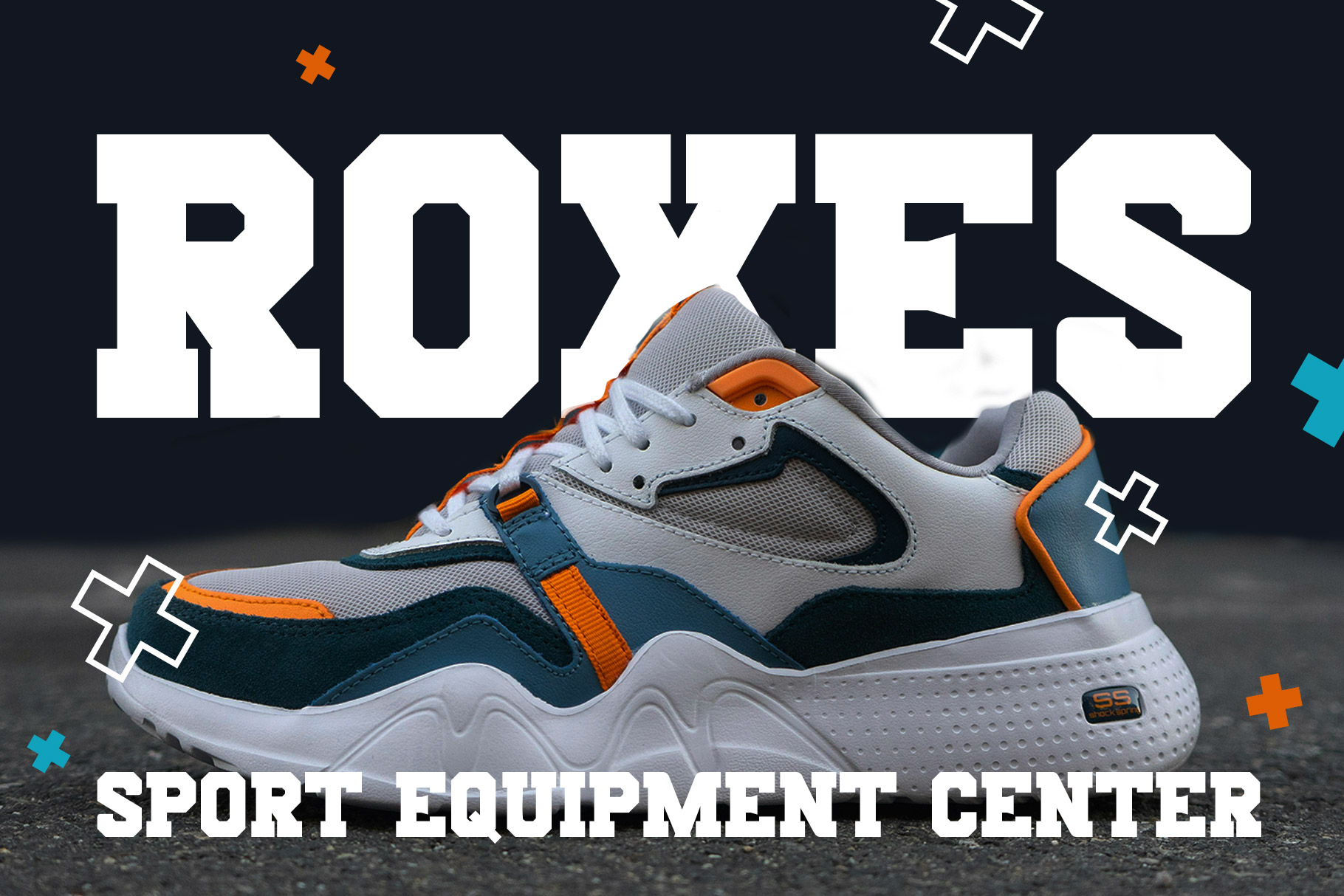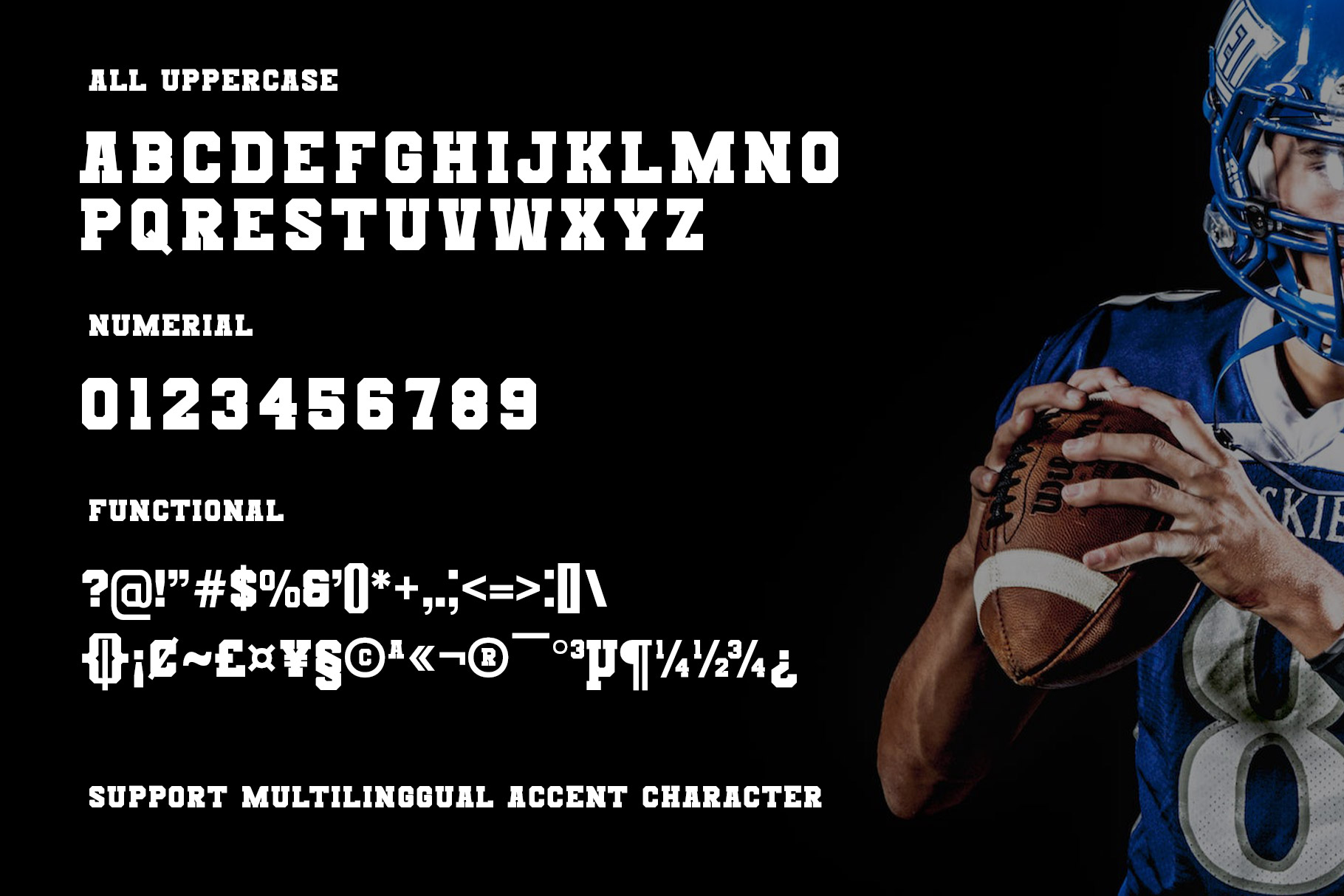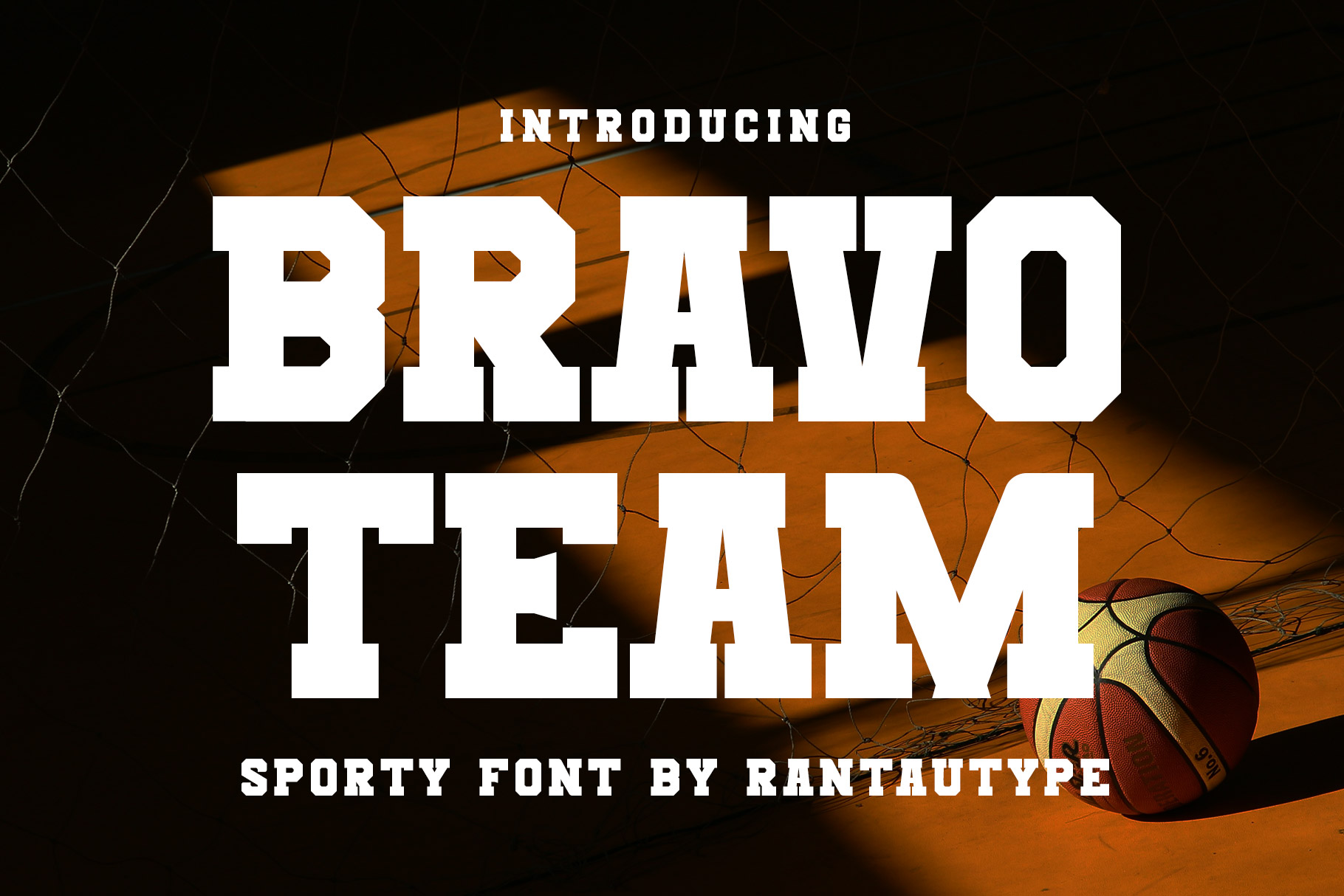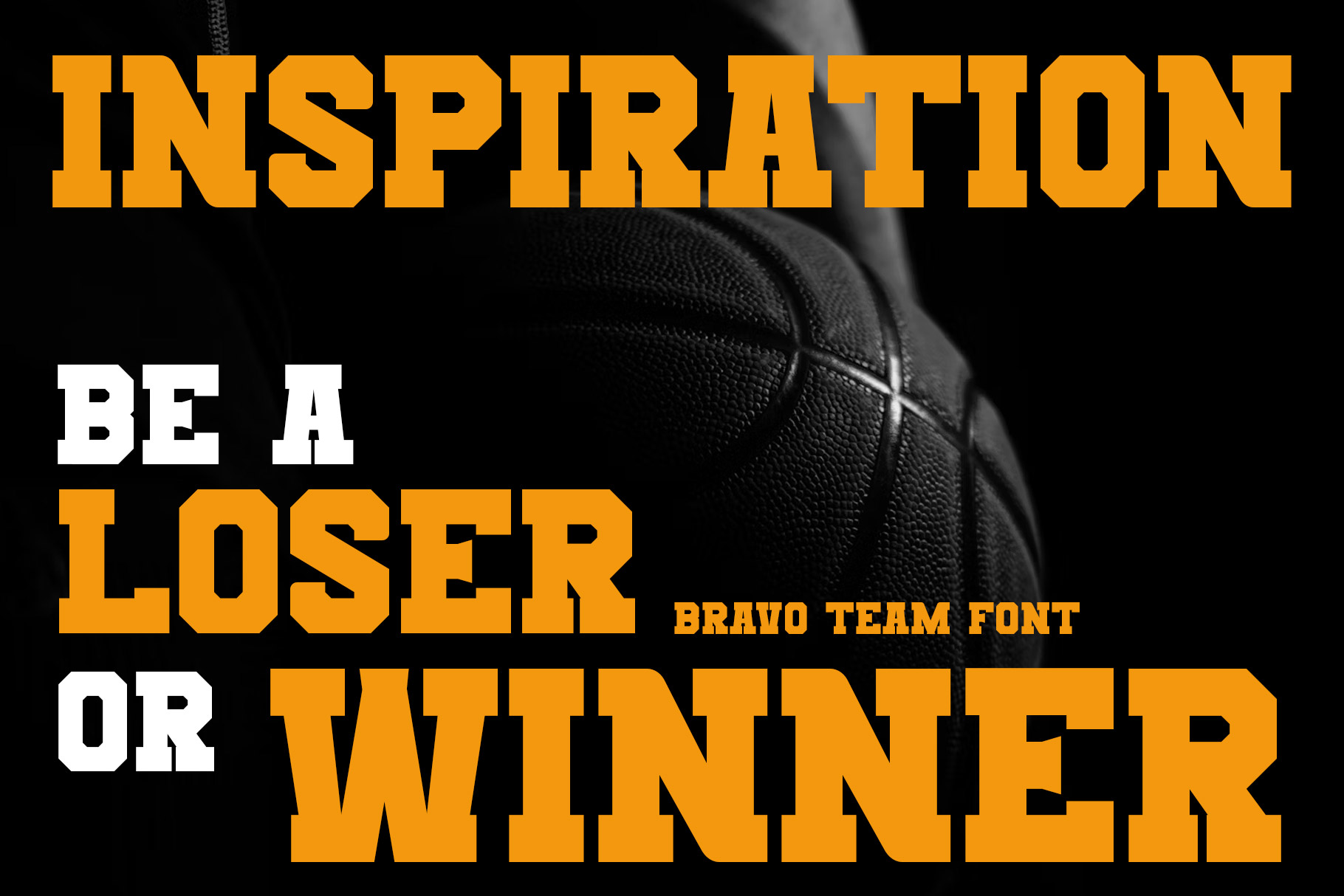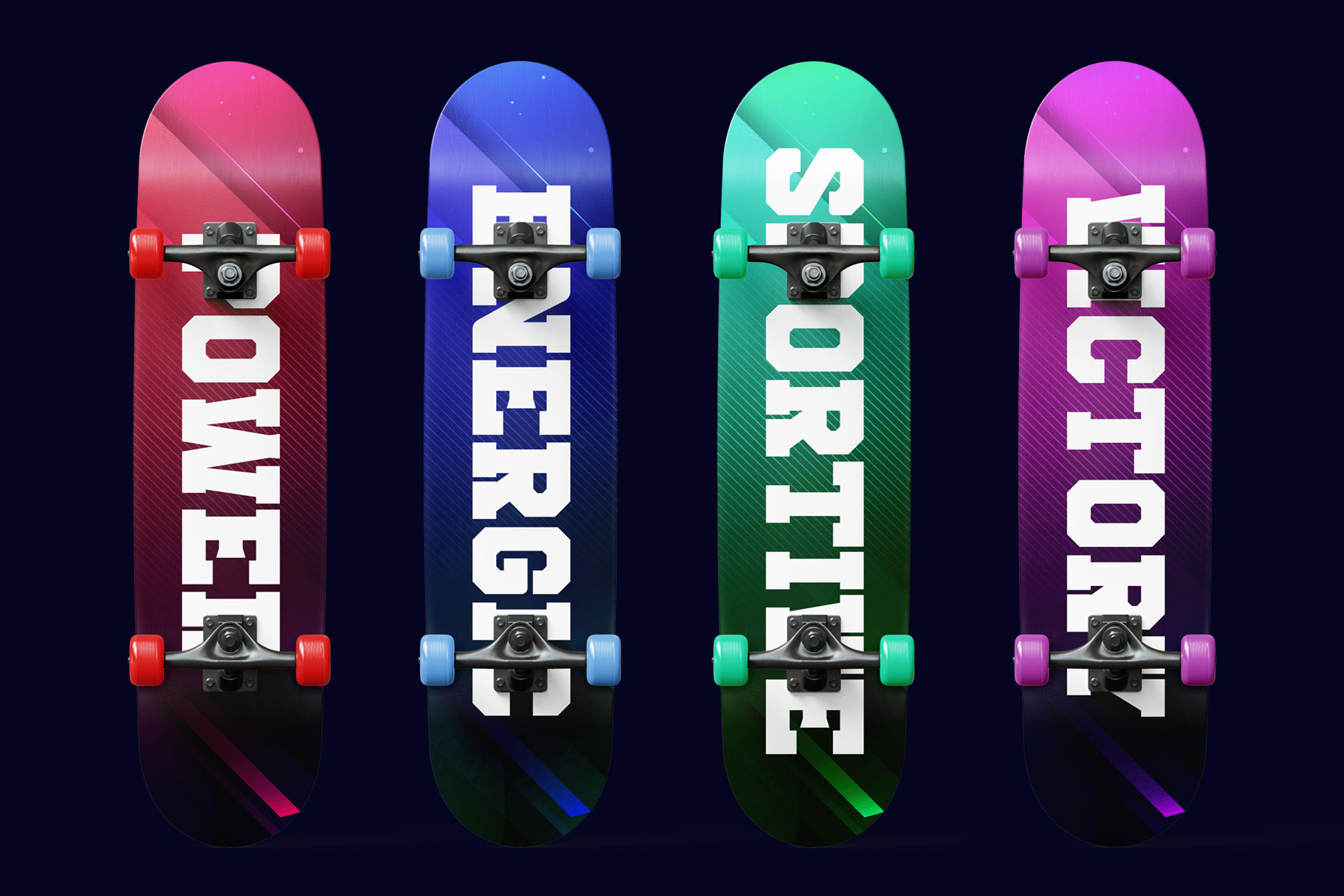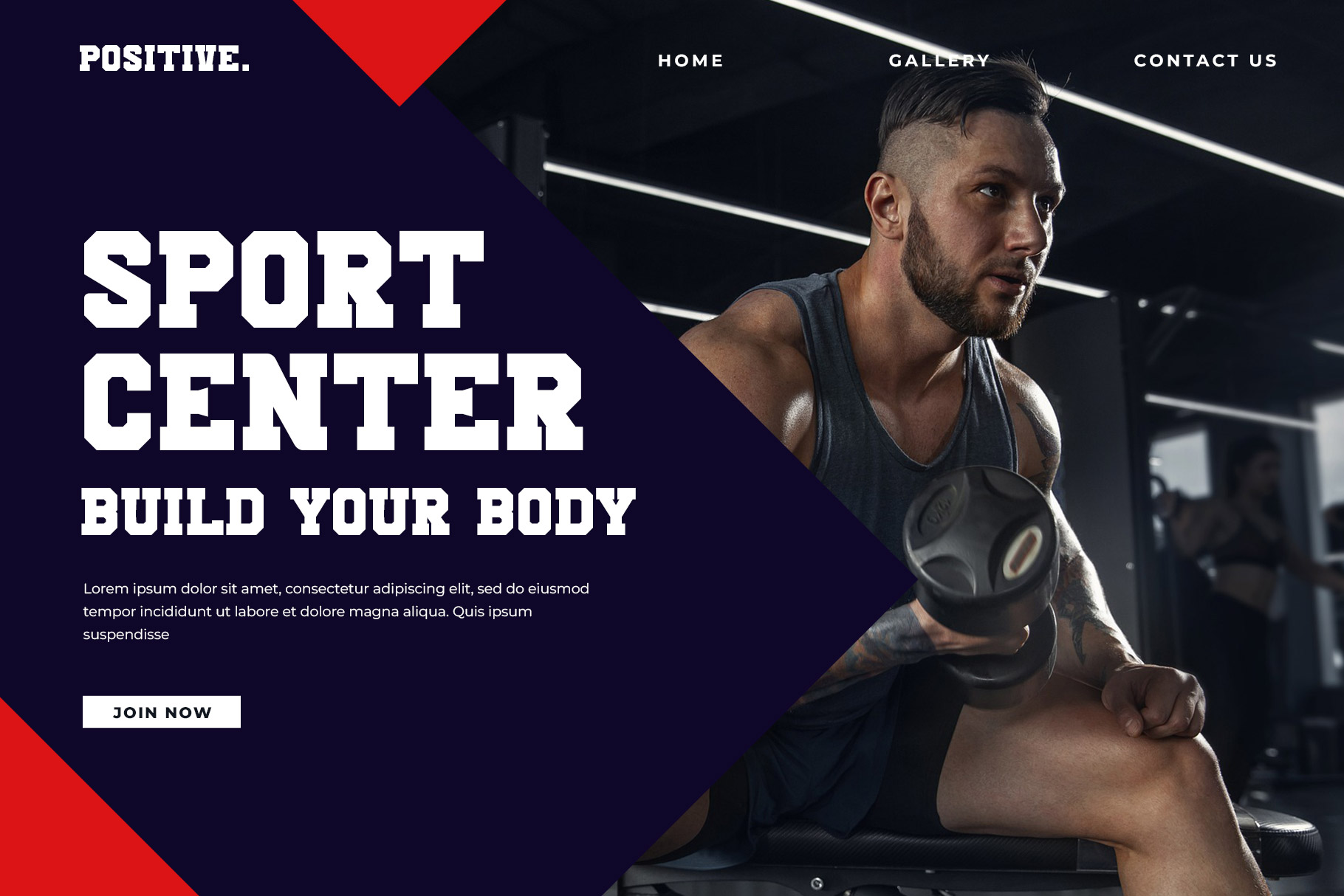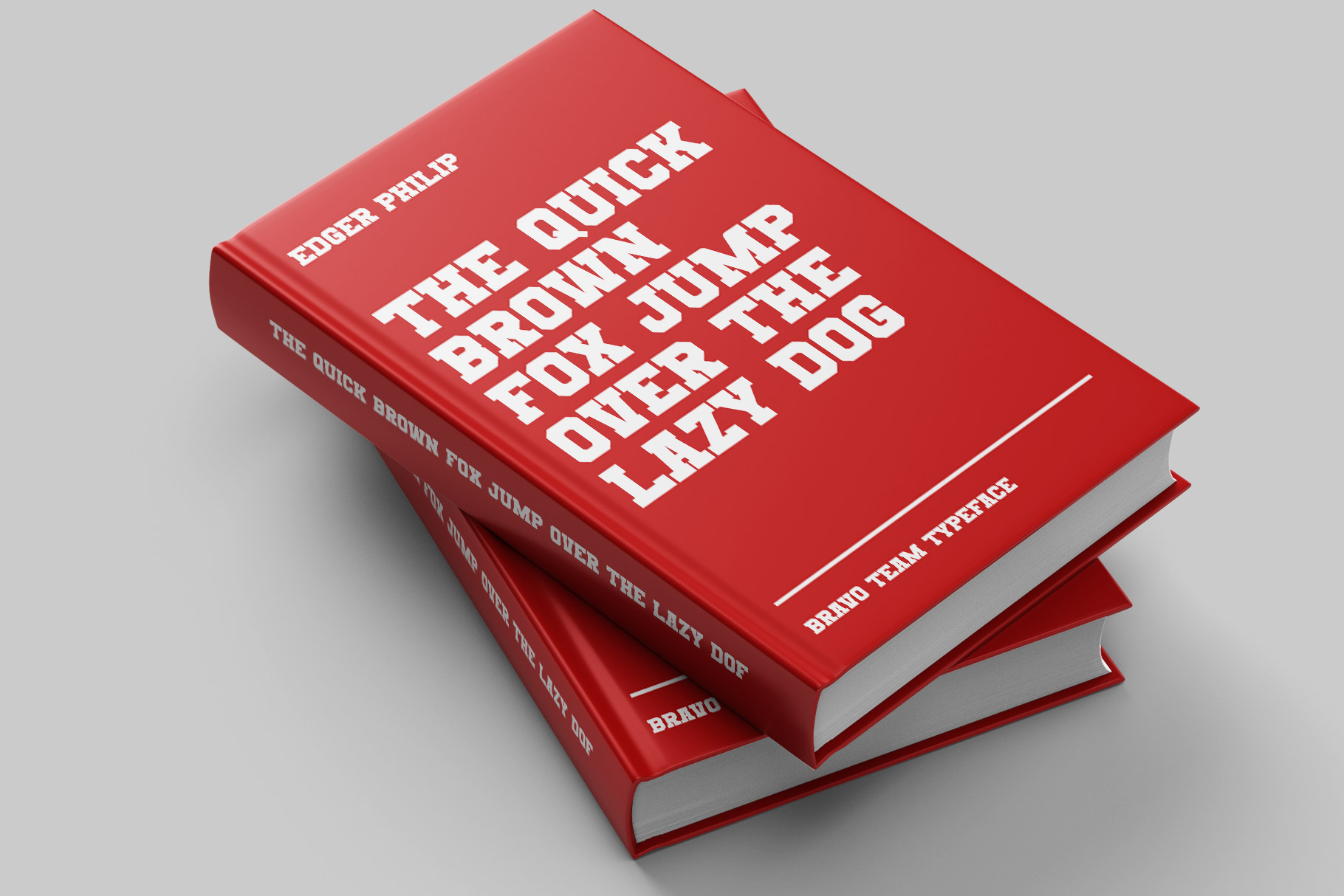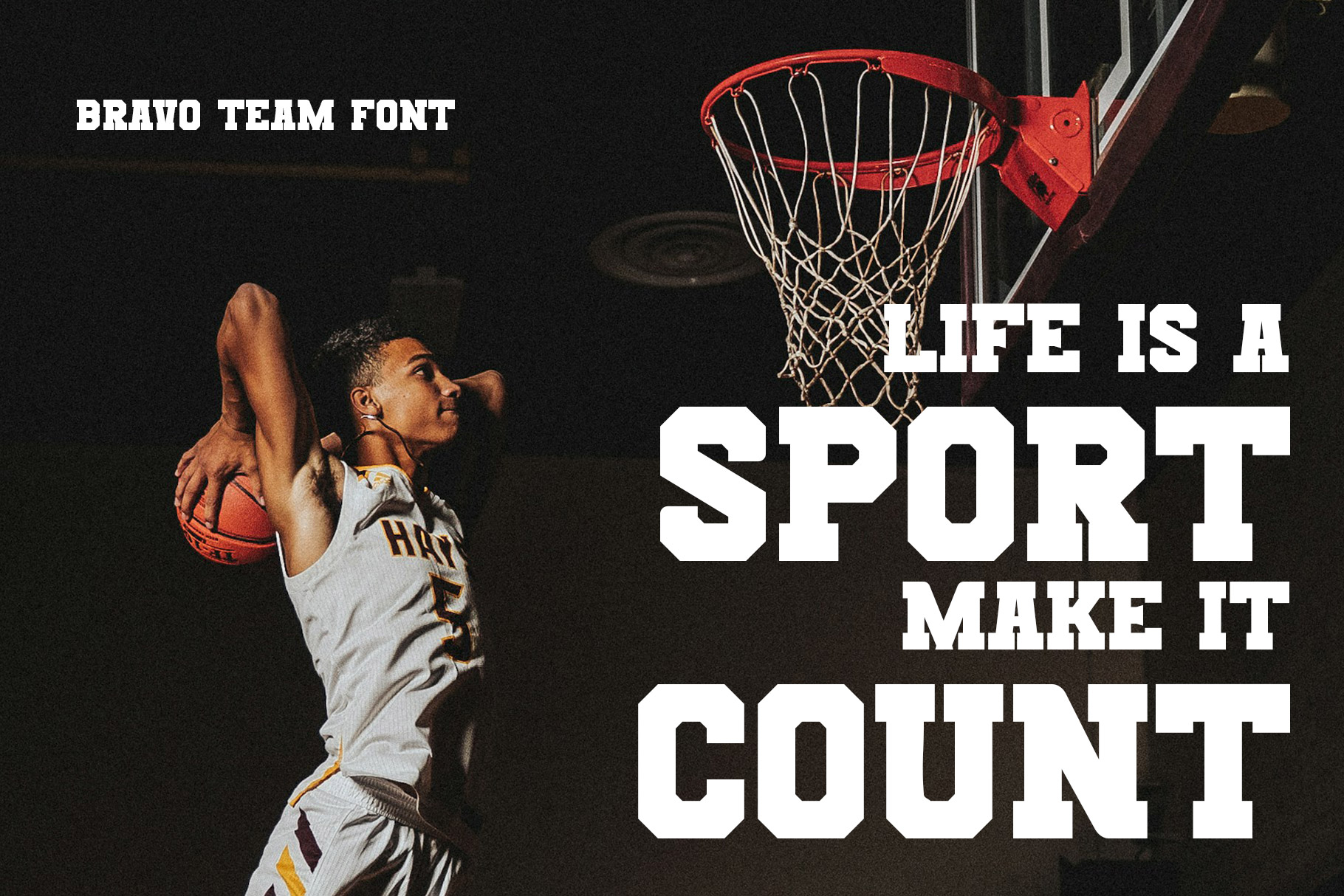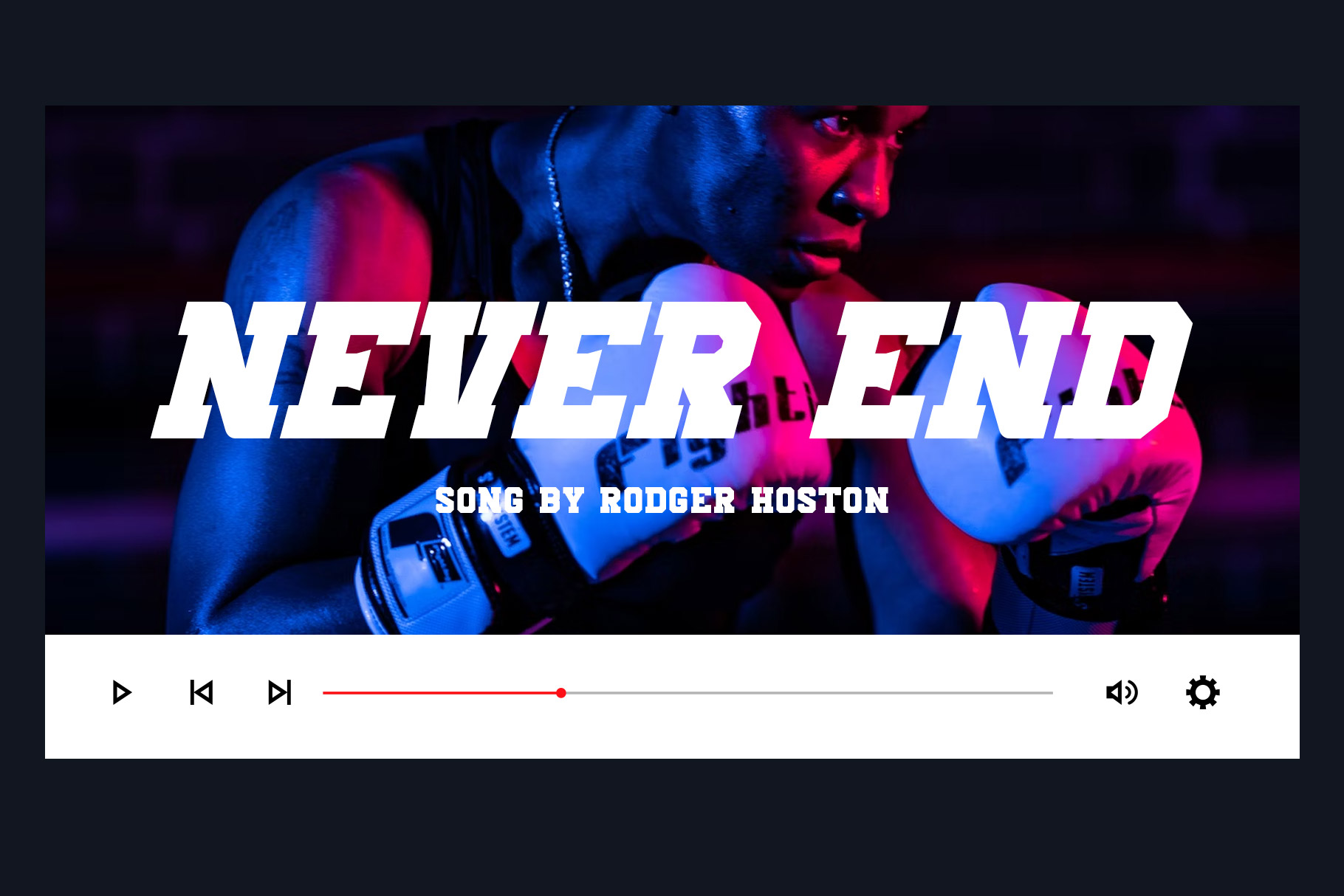
BravoTeam Sporty Font
Experience sporty in a visual form for your design with the bravoteam font. Inspired by sport brand and retro concept, targeting the sport forward mentality with a bold shape to make the statement louder and modern than ever. bravoteam come with retro visual, strong curve and have already support multingual accent character.
A very versatile font that works in large and small sizes. Perfectly suitable for any creative endeavor, personal project, corporate, enterprise, industrial, sports brand, logo, esports, games, posters, film/movice, sport events, advertising, gym and fitness, digital futuristic concept and more. Now you can using Bravoteam to elevate you work.
• 2 Font ( Reguler and Italic )
• All uppercase
Fonts include multilingual support for: Afrikaans, Albanian, Asu, Basque, Bemba, Bena, Breton, Catalan, Chiga, Cornish, Danish, Dutch, English, Estonian, Faroese, Filipino, Finnish, French, Friulian, Galician, German, Gusii, Icelandic, Indonesian, Irish, Italian, Kabuverdianu, Kalenjin, Kinyarwanda, Luo, Luxembourgish, Luyia, Machame, Makhuwa-, Meetto, Makonde, Malagasy, Manx, Morisyen, Northv Ndebele, Norwegian, Bokmål, Norwegian, , Nynorsk, Nyankole, Oromo, Portuguese, Quechua, Romansh, Rombo, Rundi, Rwa, Samburu, Sango, Sangu, Scottish, Gaelic, Sena, Shambala, Shona, Soga, Somali, Spanish, Swahili, Swedish, Swiss, German, Taita, Teso, Uzbek (Latin), Volapük, Vunjo, Zulu